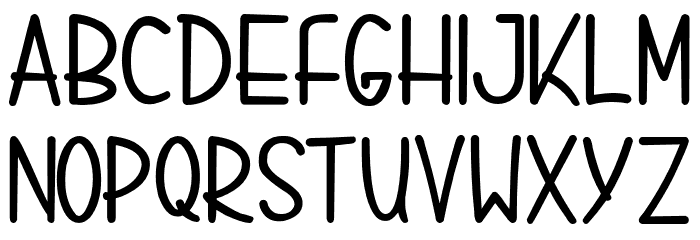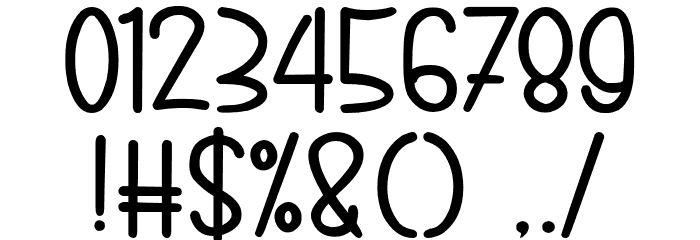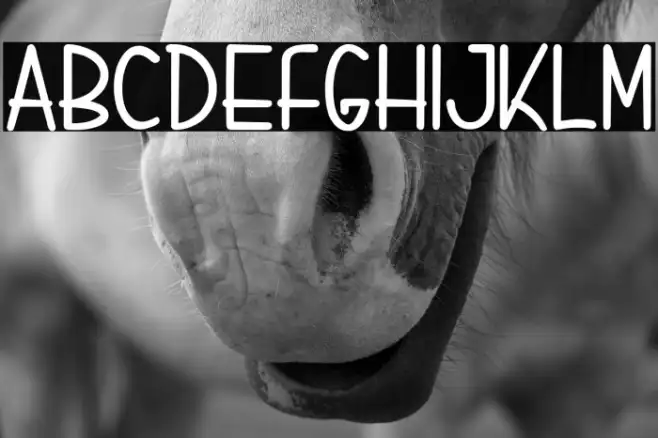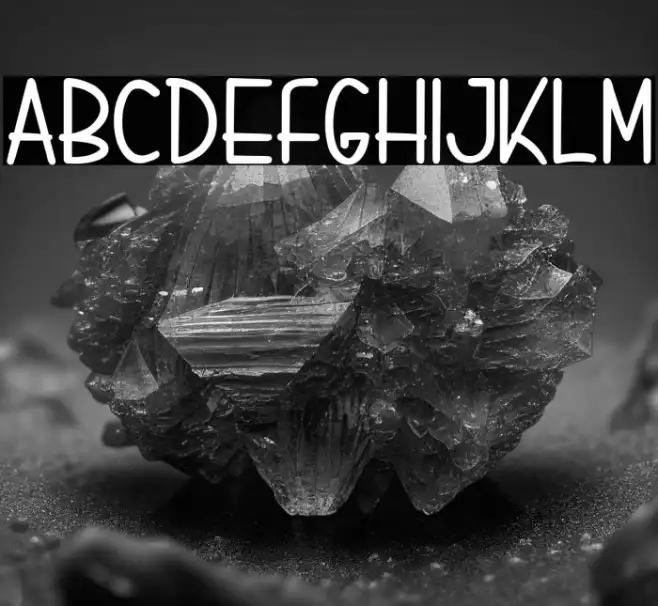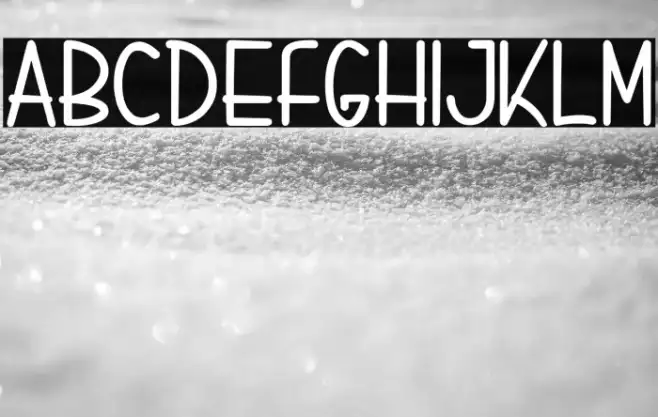
LIQUIDBLOSS Font
This font features a playful and casual handwritten style, characterized by its rounded edges and consistent stroke width. The letters are slightly elongated, giving a whimsical and friendly appearance. The uppercase and lowercase letters maintain a uniform height, which contributes to a cohesive look. The numerals and special characters are designed to match the overall style, ensuring a harmonious visual flow. This font is ideal for projects that require a personal touch or a relaxed vibe, making it suitable for invitations, greeting cards, or informal branding.
A playful, handwritten font with rounded edges and consistent stroke width.
- Font: LIQUIDBLOSS
- Proposed Projects: Ideal for invitations, greeting cards, children's books, and informal branding.
- Category: Handwritten
- Overall Style: Casual
- Use Case: Headlines, Logos, Informal Text